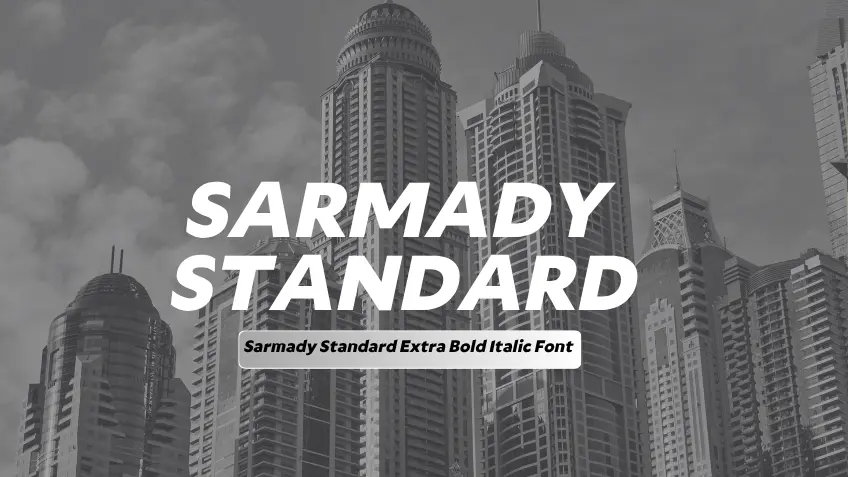
Sarmady Standard Extra Bold Italic
Sarmady Standard Extra Bold Italic Font
The font Sarmady Standard Extra Bold Italic, designed by Baianat Type Design, falls under the Naskh, Sans Serif category & Sarmady Standard font family. Its smooth, flowing letterforms make it a versatile choice for projects that require both elegance and readability. Sarmady Standard is particularly well-suited for Branding, Web Design, Body Text, Headlines, Titles, Website, UI/UX Design, Display Text and User interfaces. With its balance of simplicity and decorative appeal, this font brings a polished touch to both personal and professional designs.